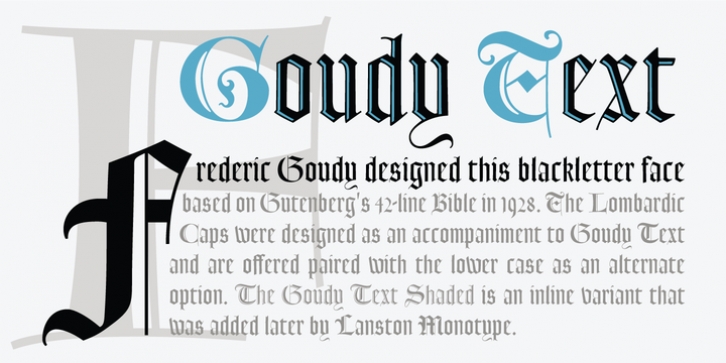
LTC Goudy Text was designed by Frederic Goudy and published by Lanston Type Company. LTC Goudy Text contains 6 styles and family package options.
Frederic Goudy designed this blackletter face based on Gutenberg's 42-line Bible.
The Lombardic Caps were designed as an accompaniment to Goudy Text and are offered paired with the lower case as an alternate option.
The Goudy Text Shaded is an inline variant that was added later by Lanston Monotype.
Both varieties of capitals, as well as an expanded Central European character set, are offered in the Opentype set versions.